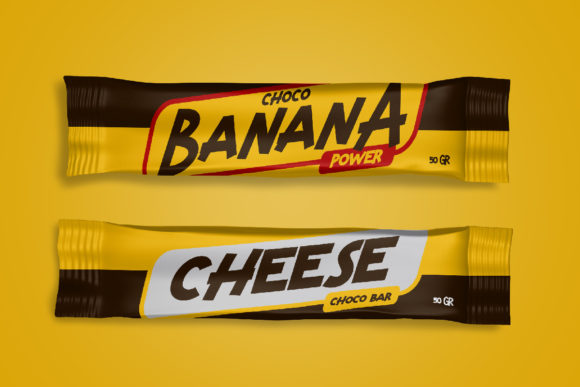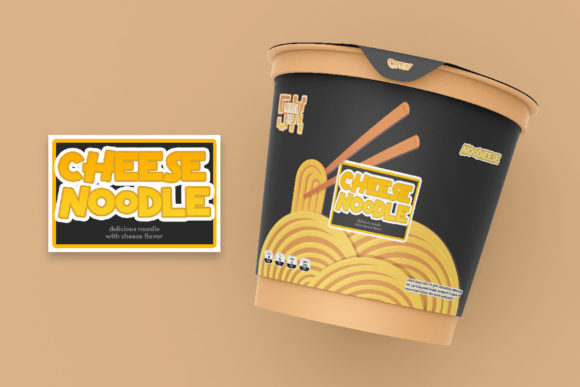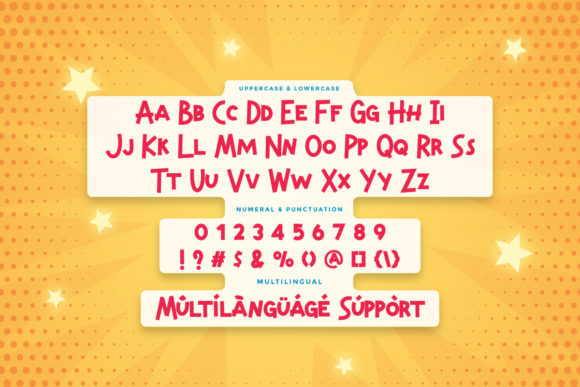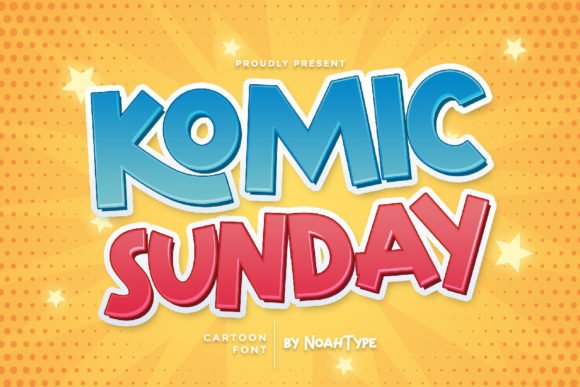
Introduction to Komic Sunday Font
Komic Sunday is a cartoon styled display font.
It is PUA encoded which means you can access all of the glyphs and swashes with ease Add it confidently to your projects, and you will love the results.
Why Choose Komic Sunday Font?
Komic Sunday Font offers exceptional quality and versatility, making it a valuable addition to your design toolkit. Whether you’re creating for personal projects or commercial use, Komic Sunday Font delivers professional results.